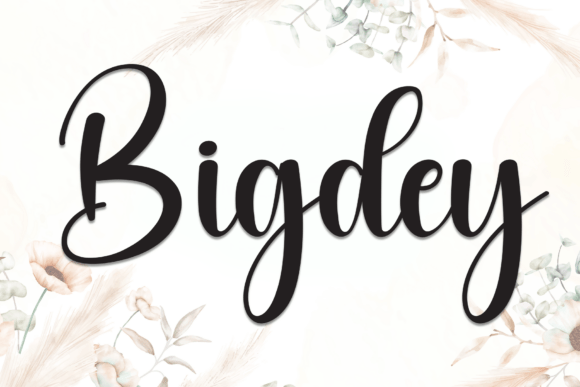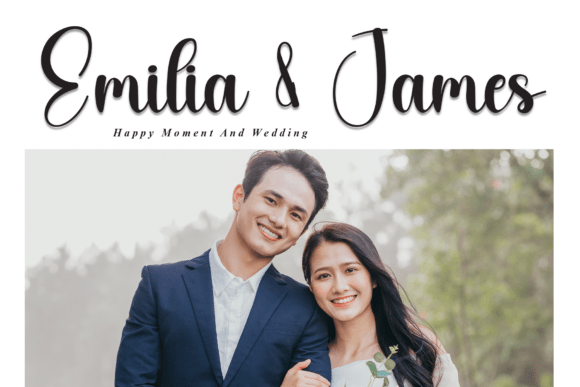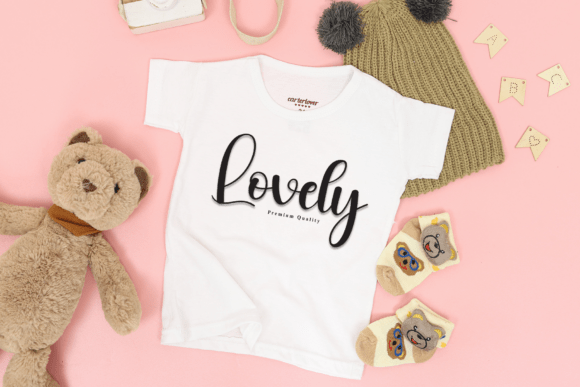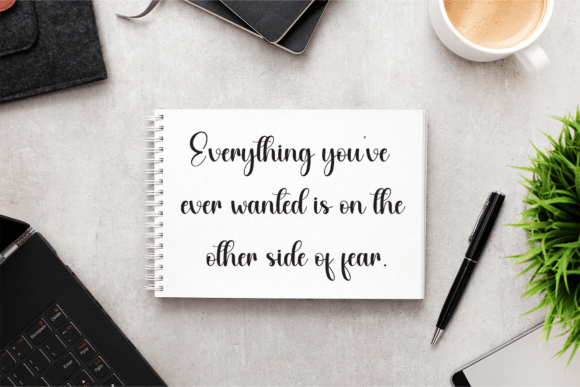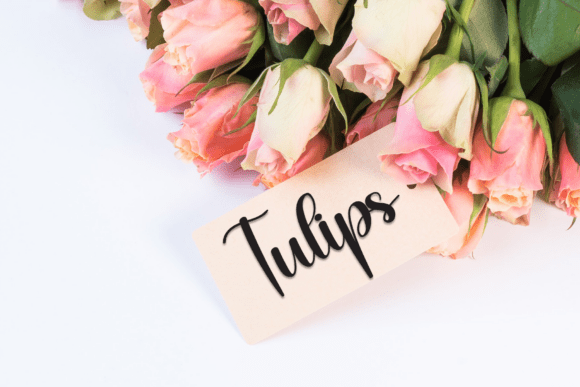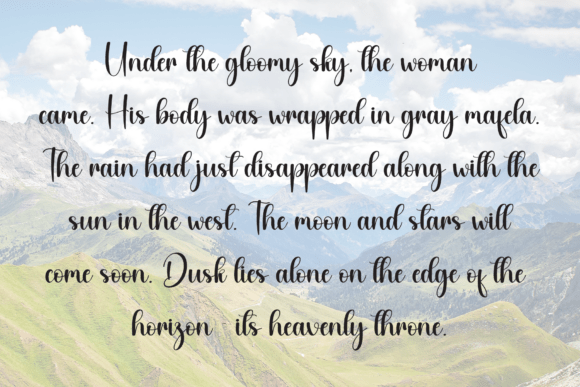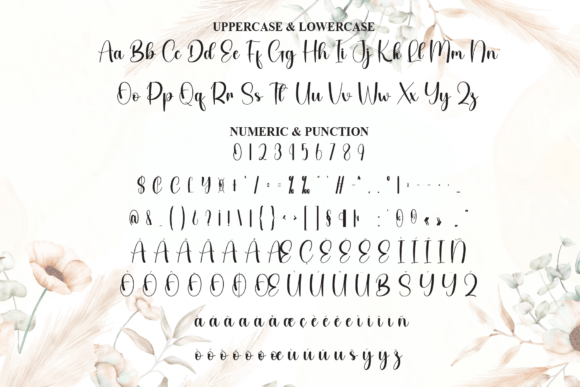
The Perfect Script: Elevating Your Designs with Bigdey Font
Have you ever found yourself in a creative rut, struggling to find the perfect font to match your artistic vision? We’ve all been there – staring at a blank page, searching for that elusive combination of style and sophistication. It’s in these moments that we need a little inspiration, a little something to spark our imagination and set our designs apart. For those who crave elegance and fluidity in their typography, look no further than the Bigdey Font.
This stylish handwritten script font is more than just a pretty face – it’s a valuable tool for designers looking to add a personal, artistic touch to their projects. With its smooth, flowing strokes and perfect balance of charm and modernity, Bigdey Font is the perfect addition to any branding, invitation, or creative project.
Key Features of Bigdey Font
- Font Family: Bigdey Font is a typeface designed for various applications, including digital and print media.
- Font Size: Bigdey Font comes in multiple font sizes, ranging from 12pt to 72pt, making it suitable for various design requirements.
- Unique Characteristics: Bigdey Font features a unique blend of modern and traditional elements, with clean lines, geometric shapes, and subtle nuances that make it stand out from other fonts.
Bigdey Font Review
Overall, I think Bigdey Font has some interesting qualities, but it’s not without its flaws. Let’s dive in!
- ✨ Unique design aesthetic: Bigdey Font has a quirky, playful feel that could add some much-needed personality to your project.
- ✨ Versatility: This font seems to work well in a variety of contexts, from digital displays to print materials.
- ✨ Good legibility: Bigdey Font is generally easy to read, even at smaller sizes.
- ⚠️ Limited language support: Bigdey Font may not be suitable for projects that require a wide range of languages.
- ⚠️ Overly ornate: While the unique design aesthetic is a plus, some users may find the font’s flourishes too distracting or overwhelming.
- ⚠️ Not ideal for body text: Bigdey Font is best suited for headlines, titles, and other emphasis text – it may not be the best choice for large blocks of body text.
In conclusion, Bigdey Font is a solid choice for projects where you want to add some personality and flair. However, its limitations should be carefully considered before committing to use it. With a bit of thoughtful application, this font can really shine!
Bigdey Font is a versatile font that can be used in a variety of contexts, including:
- Editorial and publishing projects
To get the most out of Bigdey Font, experiment with different font sizes, colors, and combinations to create unique and